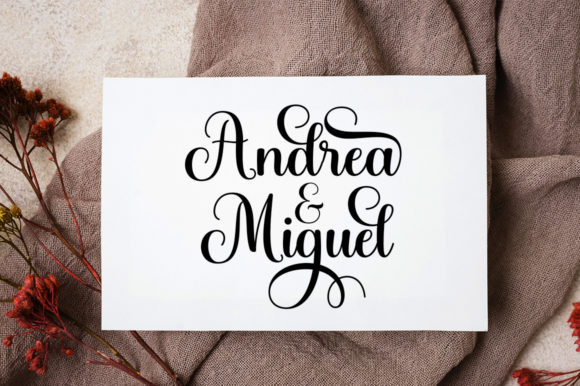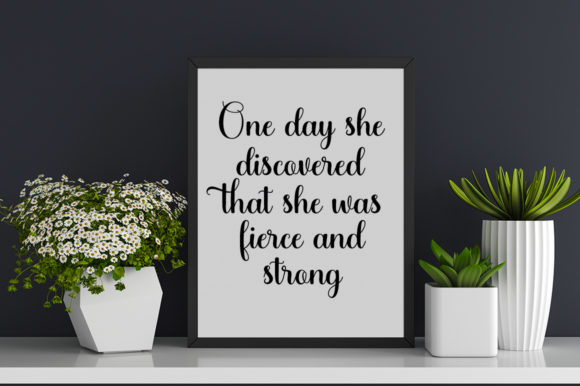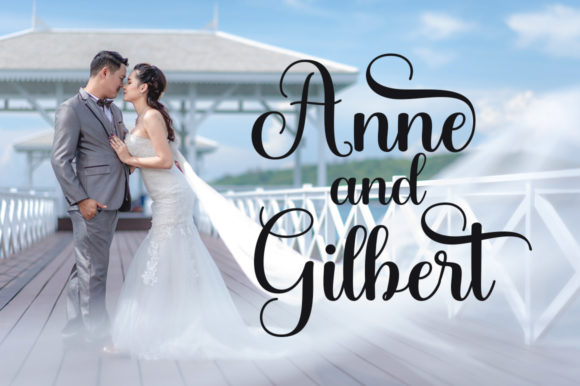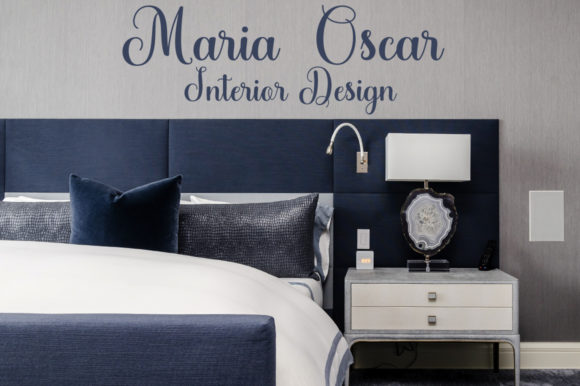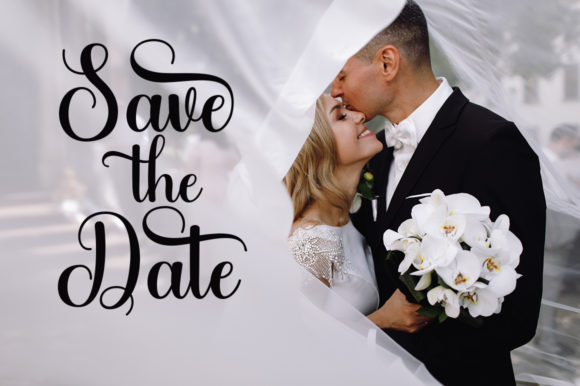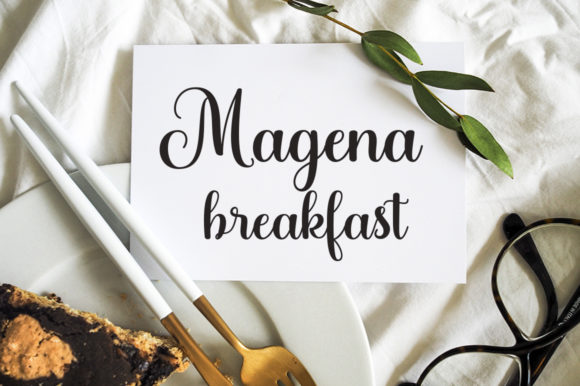
Aellena Font: Elevate Your Creative Projects with this Unique Handwritten Font
Are you a designer, crafter, or DIY enthusiast looking for a font that can add a touch of elegance and sophistication to your creative projects? Look no further than Aellena Font, a beautifully designed handwritten font that is sure to become your new favorite. With its unique and stylish lettering, Aellena Font is perfect for a wide range of projects, from weddings and cards to invitations and more.
What Makes Aellena Font So Special?
Aellena Font is a very unique handwritten font that has been expertly designed to bring out your every creative idea to the highest level. Its distinctive lettering and elegant swashes make it perfect for adding a touch of sophistication to any project. Whether you’re designing a wedding invitation, a greeting card, or a DIY craft, Aellena Font is sure to impress.
Key Features of Aellena Font
- Unique Handwritten Design: Aellena Font features a beautiful, one-of-a-kind handwritten design that is sure to stand out from the crowd.
- Elegant Swashes: Aellena Font features elegant swashes that can be used to add a touch of sophistication to your designs.
- Versatile: Aellena Font is perfect for a wide range of projects, from weddings and cards to invitations and more.
Why Choose Aellena Font?
There are many fonts on the market that claim to be unique and stylish, but Aellena Font stands out from the crowd. Here are just a few reasons why:
- High-Quality Design: Aellena Font has been expertly designed to ensure that it looks great in any project.
- Versatile: Aellena Font can be used in a wide range of projects, from digital designs to print materials.
- Unique: Aellena Font is a one-of-a-kind font that is sure to stand out from the crowd.
How to Use Aellena Font in Your Projects
Aellena Font is easy to use in a variety of projects. Here are a few ideas to get you started:
- Wedding Invitations: Use Aellena Font to create beautiful, elegant wedding invitations that will set the tone for your special day.
- Greeting Cards: Add a touch of sophistication to your greeting cards with Aellena Font.
- DIY Crafts: Use Aellena Font to add a personal touch to your DIY crafts, from scrapbooking to woodworking.
- Digital Designs: Use Aellena Font in your digital designs, from social media graphics to website headers.
Whether you’re a designer, crafter, or DIY enthusiast, Aellena Font is sure to become your new favorite font. Its unique and stylish lettering, combined with its ease of use and versatility, make it a must-have for anyone looking to add a touch of elegance and sophistication to their creative projects.